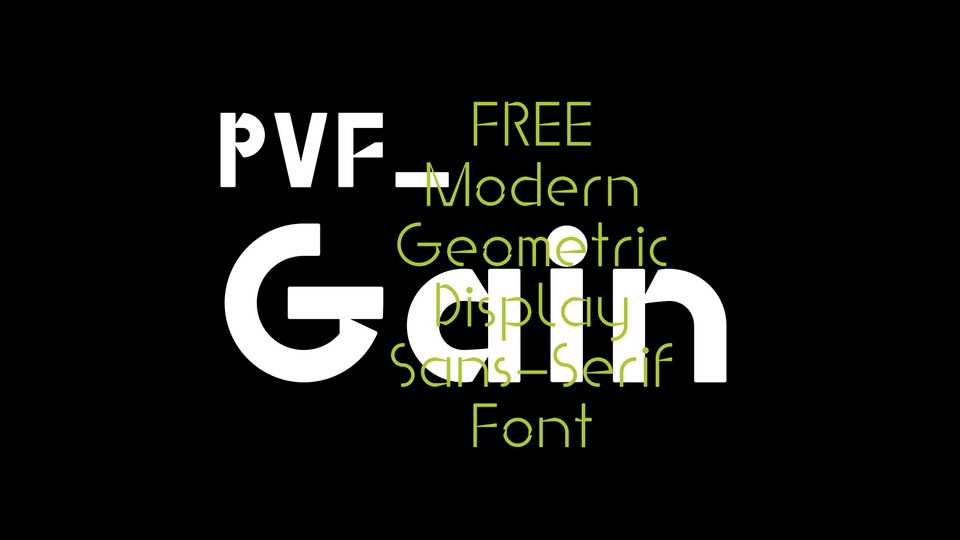
Download PVF Gain typeface, a modern geometric display sans serif font family with 8 styles, featuring a high contrast on its compounds reflecting a metallic effect.
Designer: Petros Vasiadis